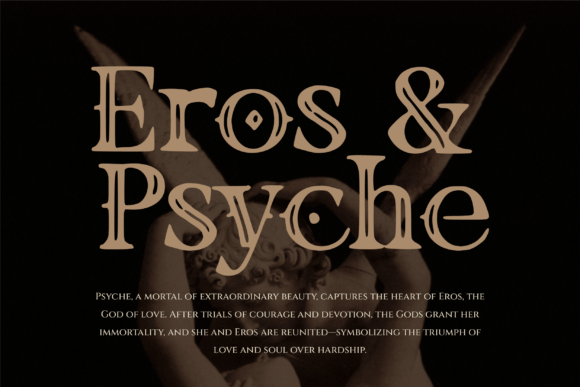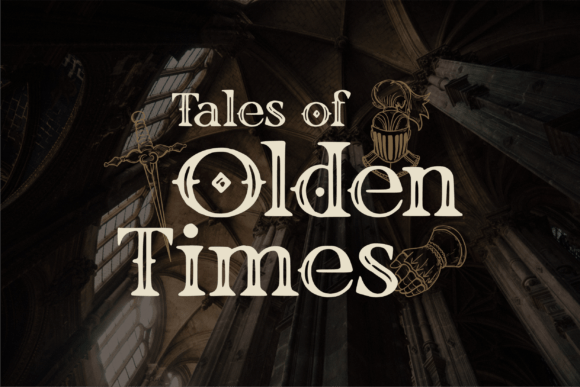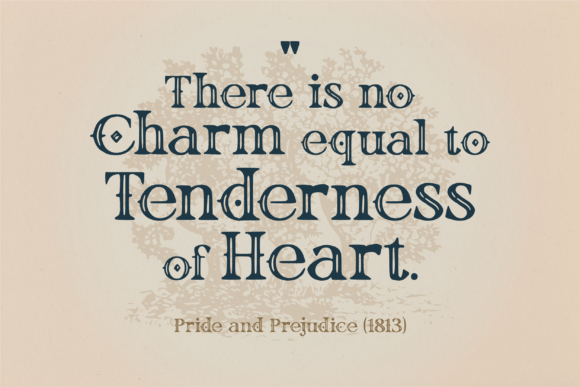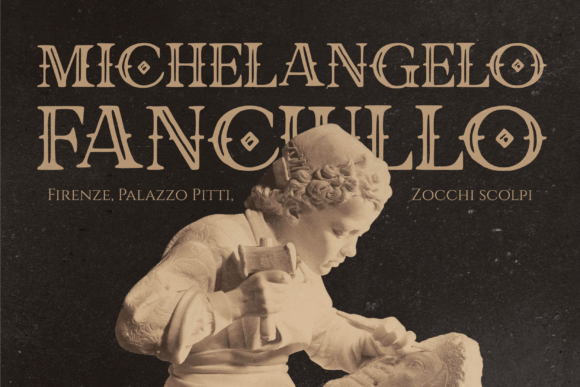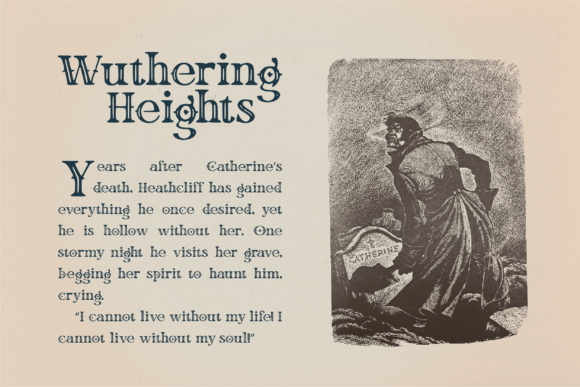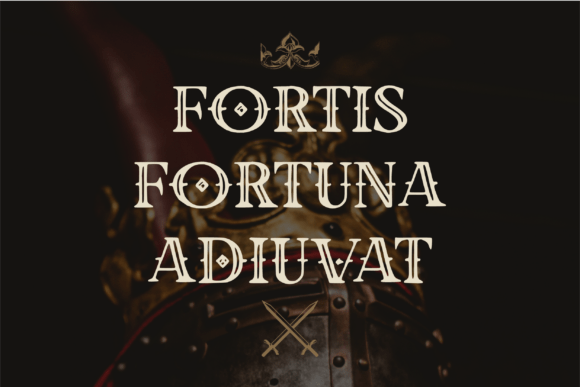
Introduction to Old Castle Font
Imagine you’re curled up with a vintage novel, surrounded by the musty scent of old bookshelves and the soft glow of a reading lamp. As you turn the pages, the elegant typography transports you to a bygone era, where craftsmanship and attention to detail were the hallmark of true artistry. That’s the magic of Old Castle Font, a vintage-inspired classic serif typeface that brings the sophistication of traditional printing to the modern design world.
For designers seeking a refined, heritage-driven aesthetic, Old Castle Font is a treasure trove of creative possibilities. With its ornamental charm, balanced letterforms, and historical touch, this serif typeface elevates projects with a sense of authenticity and grandeur. Whether you’re working on a book cover, editorial layout, or branding campaign, Old Castle Font is the perfect design resource to add a touch of elegance and sophistication.
Key Features of Old Castle Font
- High-quality design with a unique, distressed look, perfect for creative projects and backgrounds.
- Perfect for use in creative projects, such as graphic design, digital art, and print materials, requiring a vintage or distressed look.
Honest Review: Old Castle Font
I recently stumbled upon the Old Castle Font and I must say it’s a hidden gem in the world of design resources. With a transparent background, this font is perfect for adding a touch of elegance to any creative project.
- High quality design that’s perfect for creating a vintage or medieval feel in your project ✨
- Unique and creative characters that add a personal touch to your design ✨
- May not be suitable for modern or minimalist designs due to its vintage aesthetic ⚠️
- Some characters may require manual editing to achieve the desired effect ⚠️
Overall, I’m really impressed with the Old Castle Font. It’s a great addition to any designer’s toolkit, especially for those working on creative projects that require a touch of history and elegance. Whether you’re designing a logo, brochure, or website, this font is definitely worth considering.
Old Castle Font is a high-quality design resource perfect for creative projects that require a touch of history and elegance. With its transparent background and free download option, it’s an ideal choice for designers and artists looking to add a unique element to their work.
For the best results, use Old Castle Font in conjunction with other design elements that complement its historical and elegant feel. Experiment with different font sizes, colors, and arrangements to find the perfect look for your project.
Old Castle Font is perfect for a variety of creative projects, including:
– Historical or vintage-themed designs
– Luxury or high-end branding
– Creative posters or flyers
– Unique social media graphics